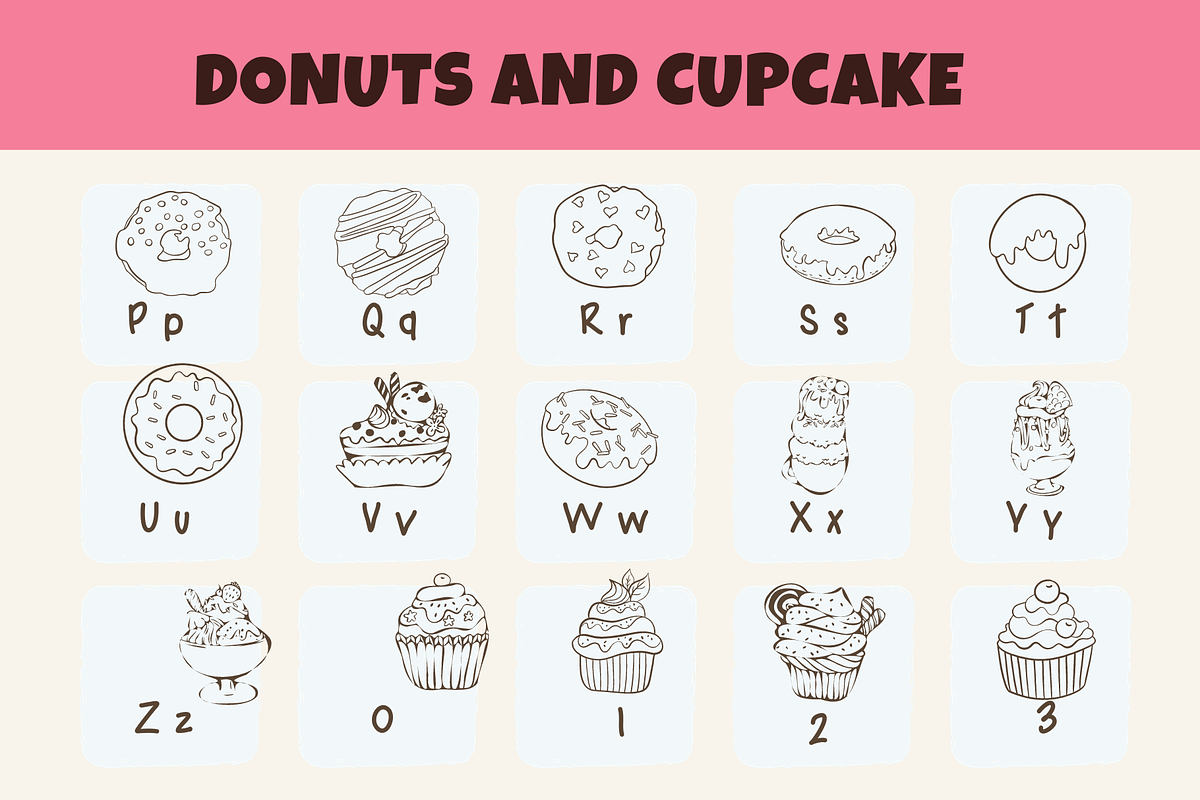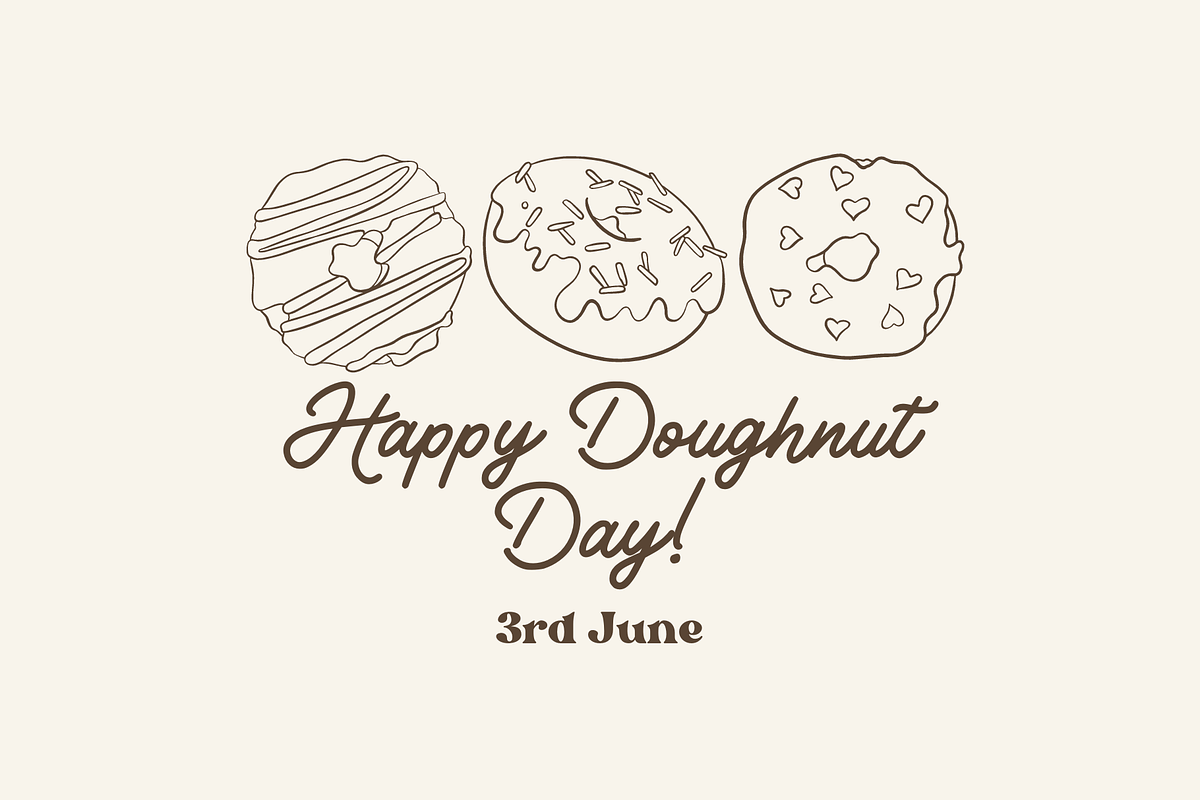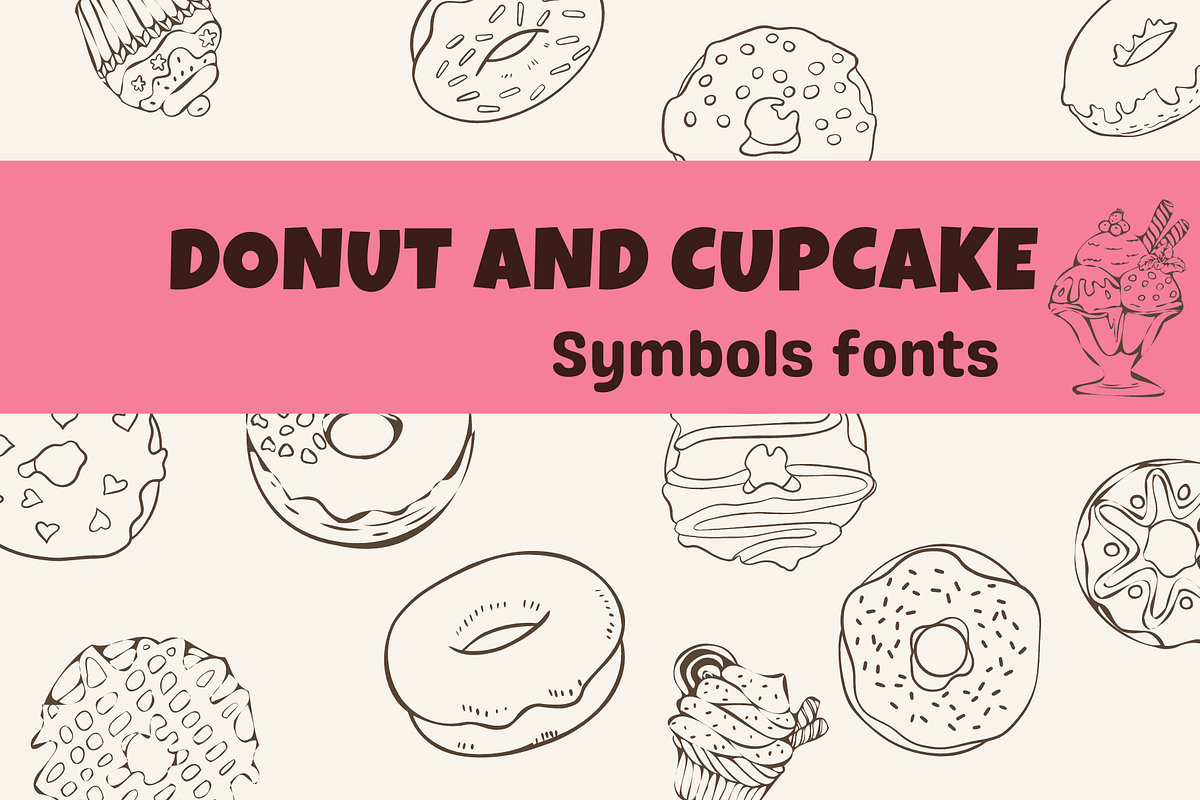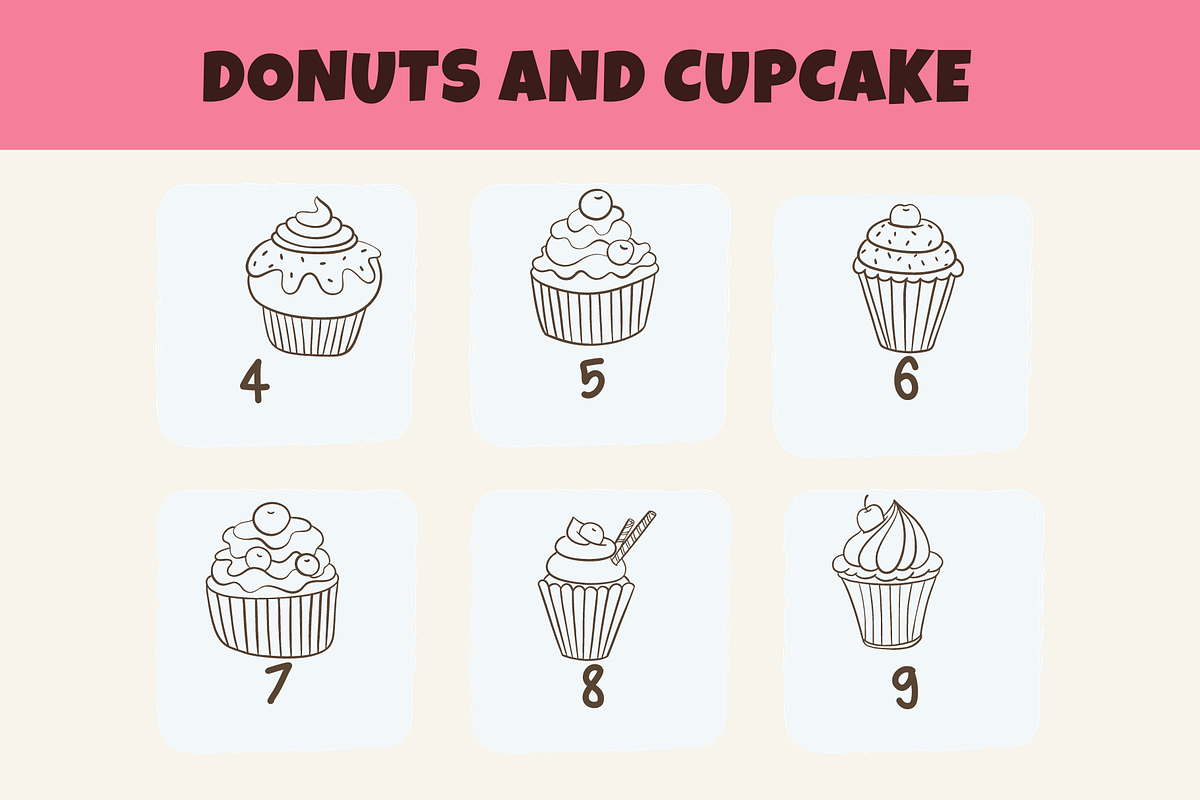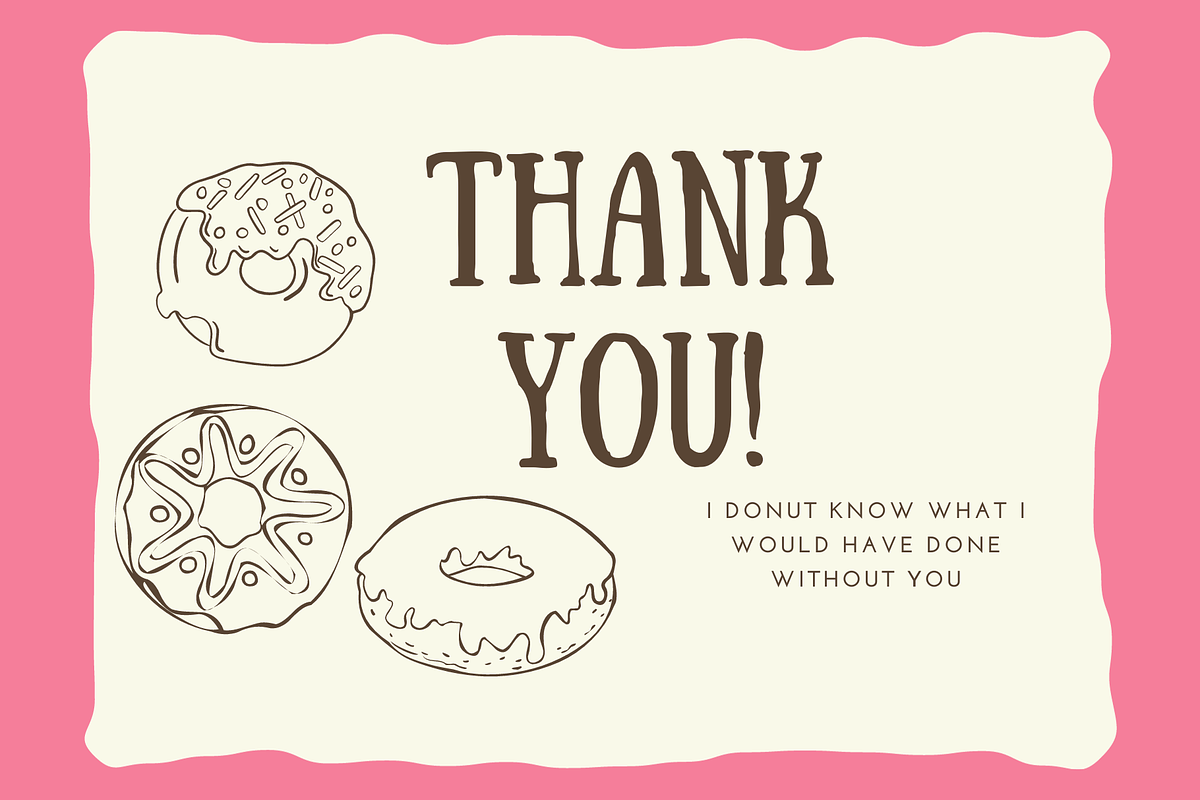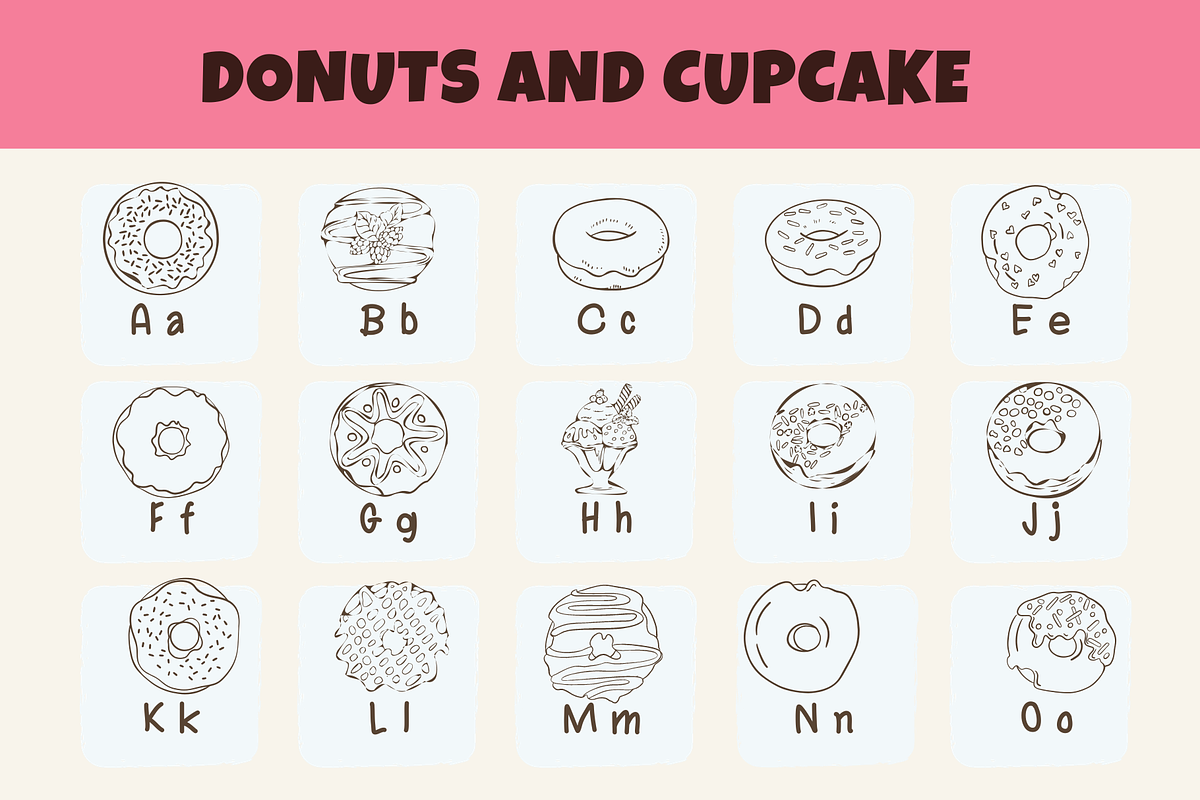
Donuts And Cupcake
Donuts And Cupcake is a symbol fonts. You can use it for taking notes, writing a diary, or making greeting cards. However, you can still use it for other designs, such as banner, content, mugs, cards, shirts, stationery, social media posts, and more! 💎Please test your characters in the font previewer below before purchase.(if something is missing or you've got a request please let me know and I'll try to add it to the next update) 💎What do you get? Format: OTF , TTF and WOFF Thank you for purchasing our product again